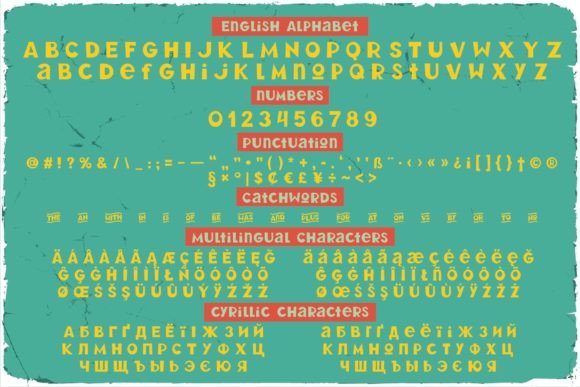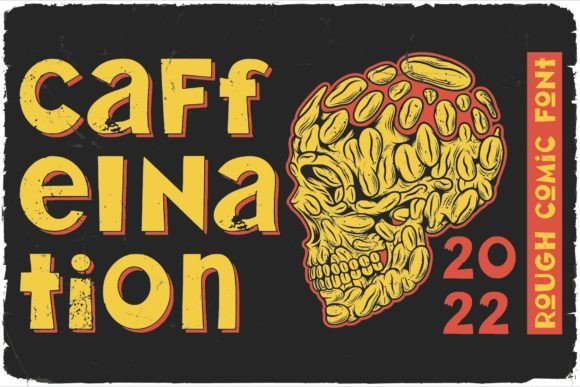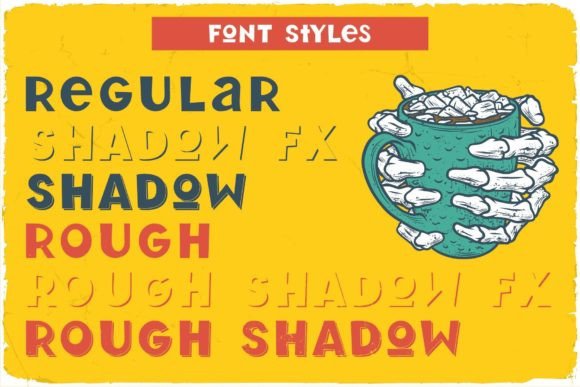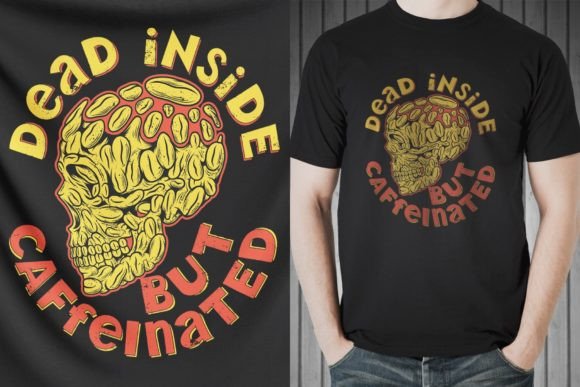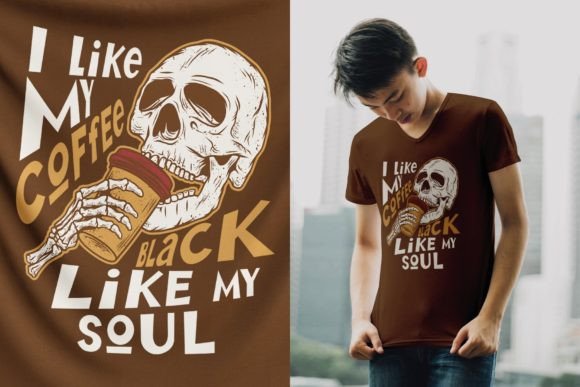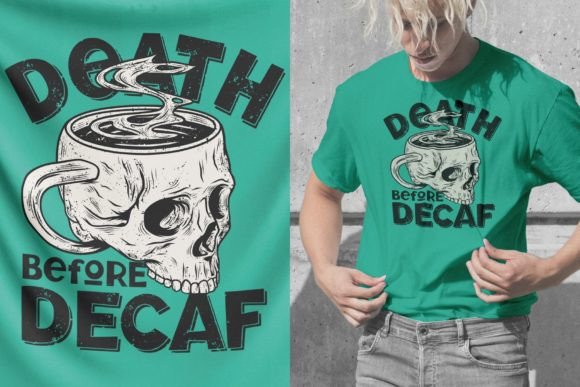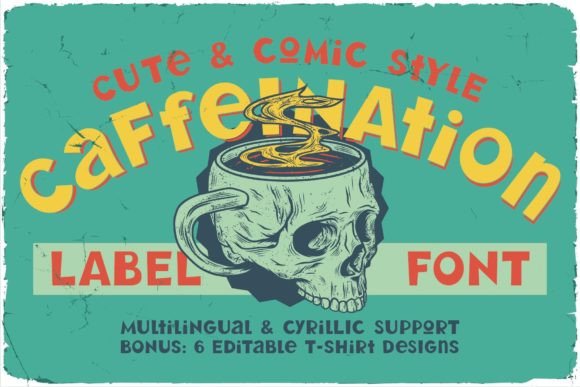
The Ultimate Design Hack: Unleashing the Power of Caffeination Font
Ah, the thrill of the design hunt! I still remember the time I was working on a vintage-themed branding project, and my client asked for a font that would transport their customers back to the good ol’ days. I scoured the internet, tried out a gazillion fonts, but nothing seemed quite right. That was until I stumbled upon the Caffeination Font. It’s been a game-changer ever since! ✨
So, what makes Caffeination Font so special? Here are the things that I absolutely adore:
• ✅ Unique vintage aesthetic that adds a touch of nostalgia to any design
• ✨ Expressive characters that bring your text to life
• 🔥 PUA encoded for easy access to all glyphs and swashes
• 💻 Highly versatile and works beautifully for both digital and print projects
Of course, no font is perfect, and Caffeination Font has a few minor quirks:
• ⚠️ Some users might find the font a tad too ornate for certain projects
• 🤔 Limited availability of language support (but this can be a minor issue for most English-language designs)
The Story Behind Caffeination Font: A Designer’s Inspiration
According to the font’s creators, Caffeination Font was inspired by the nostalgic feel of old-fashioned coffee shop signage. The designers aimed to bottle up that retro charm and make it accessible to designers and crafters worldwide. Whether that’s entirely true or not, one thing’s for sure: Caffeination Font has become a beloved addition to many designers’ font libraries! 😊
Q: Is Caffeination Font suitable for body text or long-form content?
While Caffeination Font is incredibly eye-catching, it’s primarily designed for display purposes (headings, titles, etc.). For body text or long-form content, you might want to pair it with a more legible font to ensure readability.